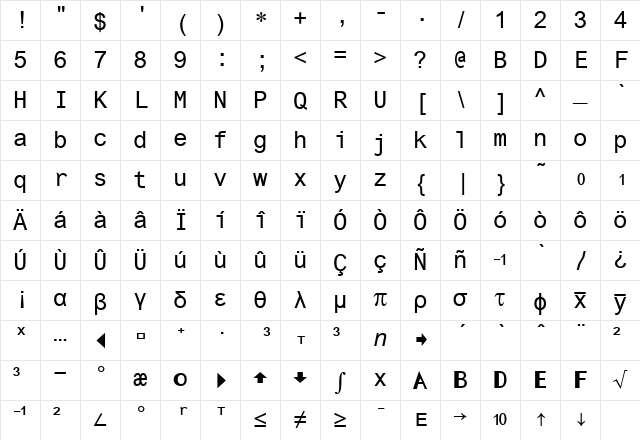
Ti86pc Regular Free Font
Ti86pc Regular
Foundry: Monotype Typography
Design Context for Ti86pc
Ti86pc is a composed and adaptable typeface that performs quietly and consistently across a wide range of design contexts.